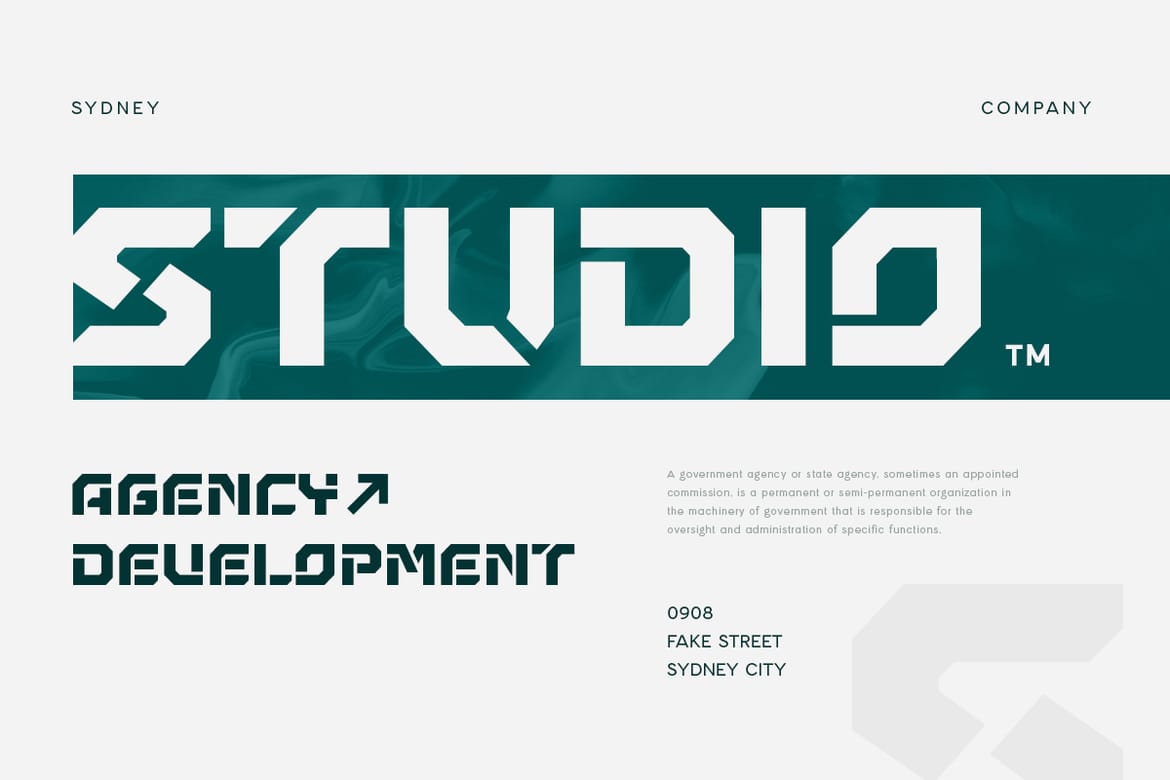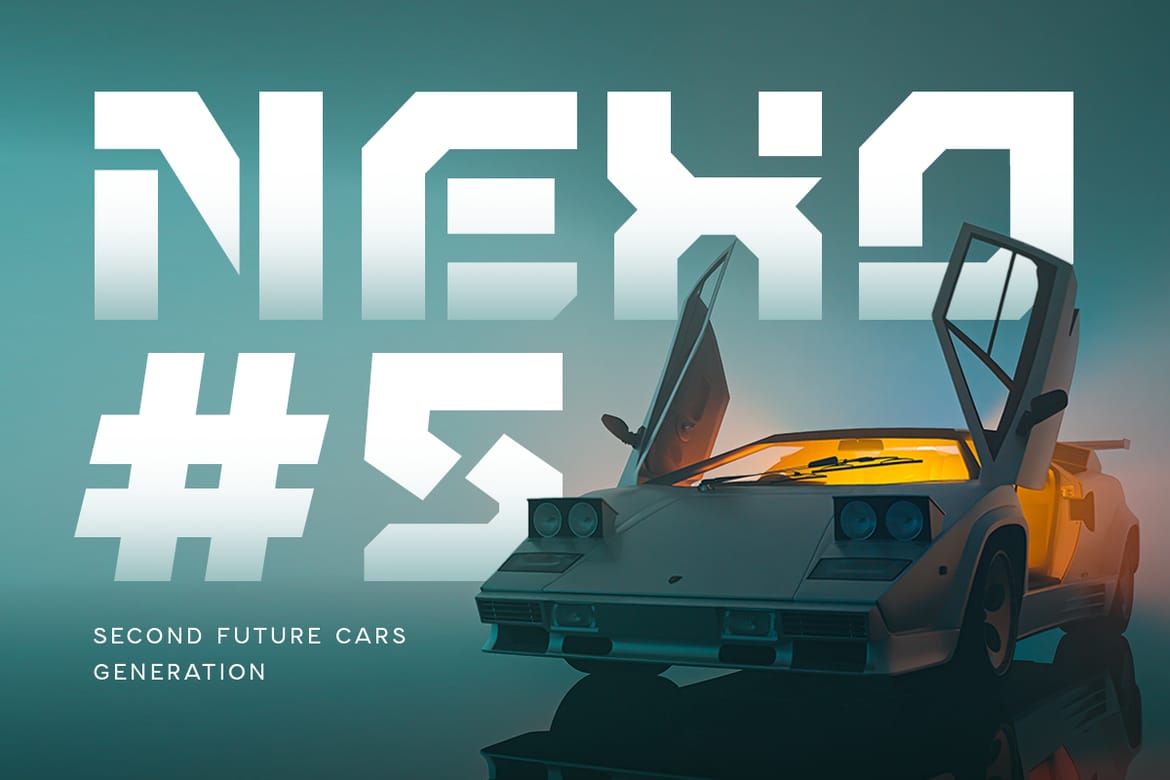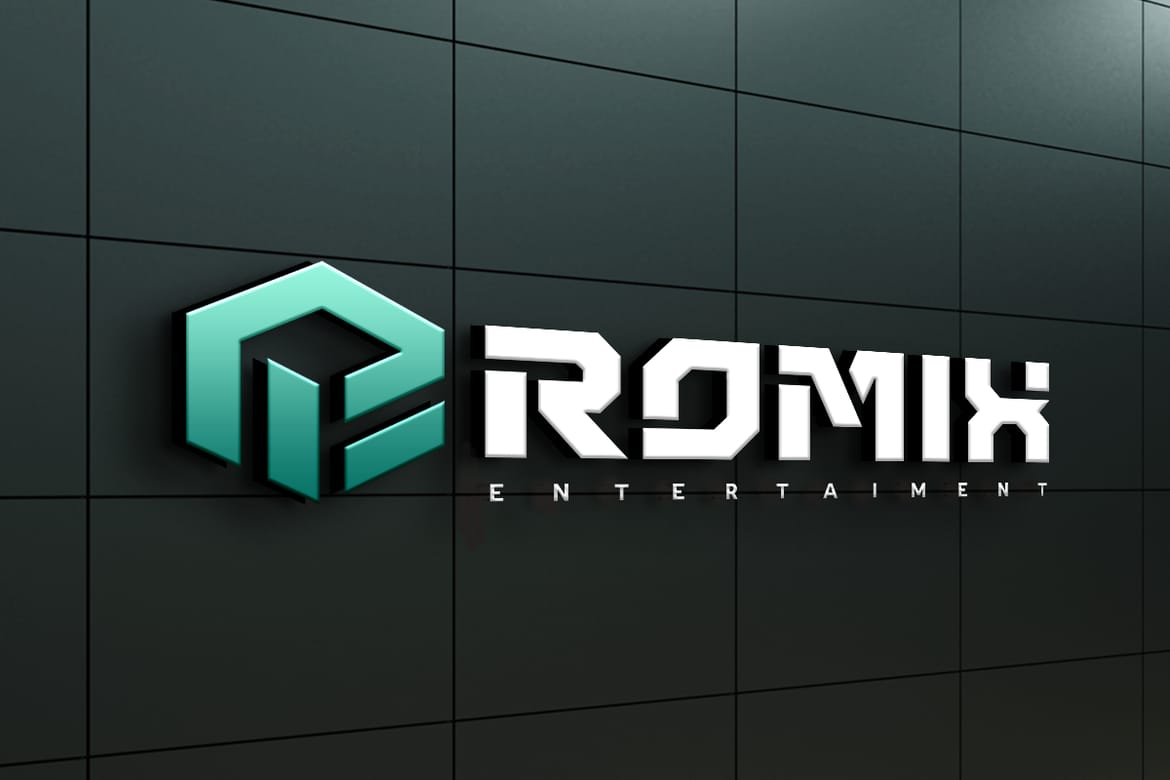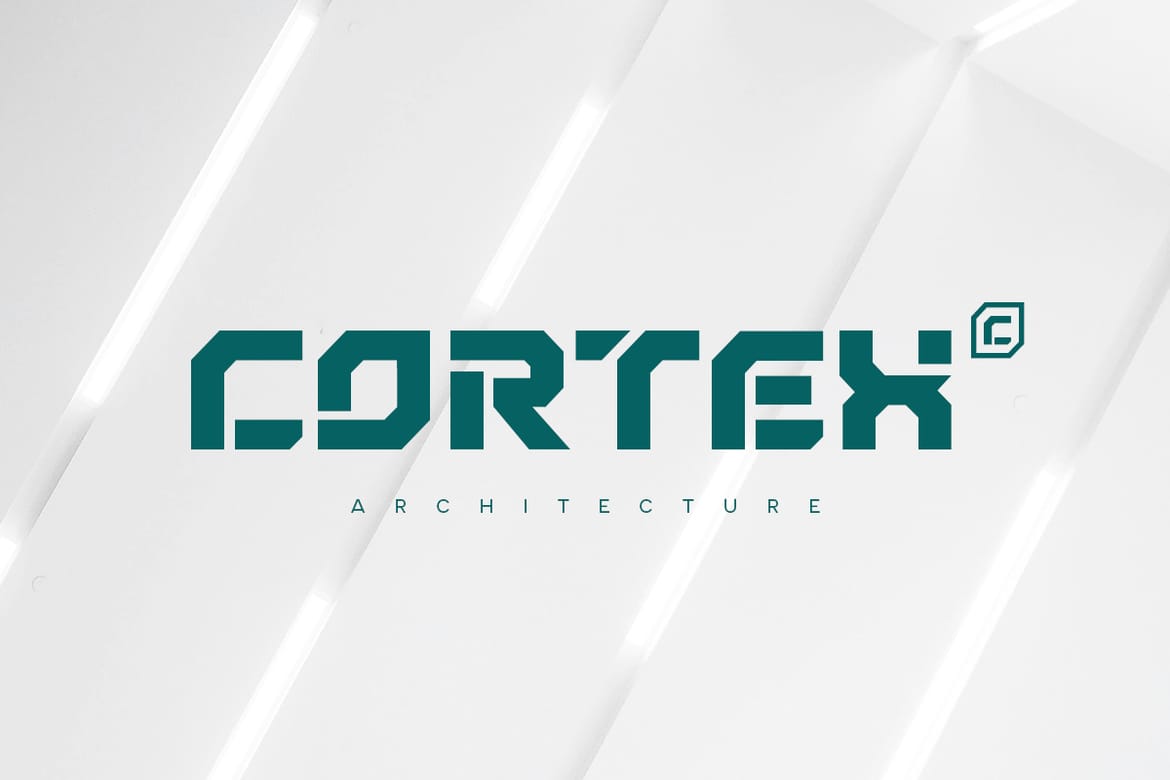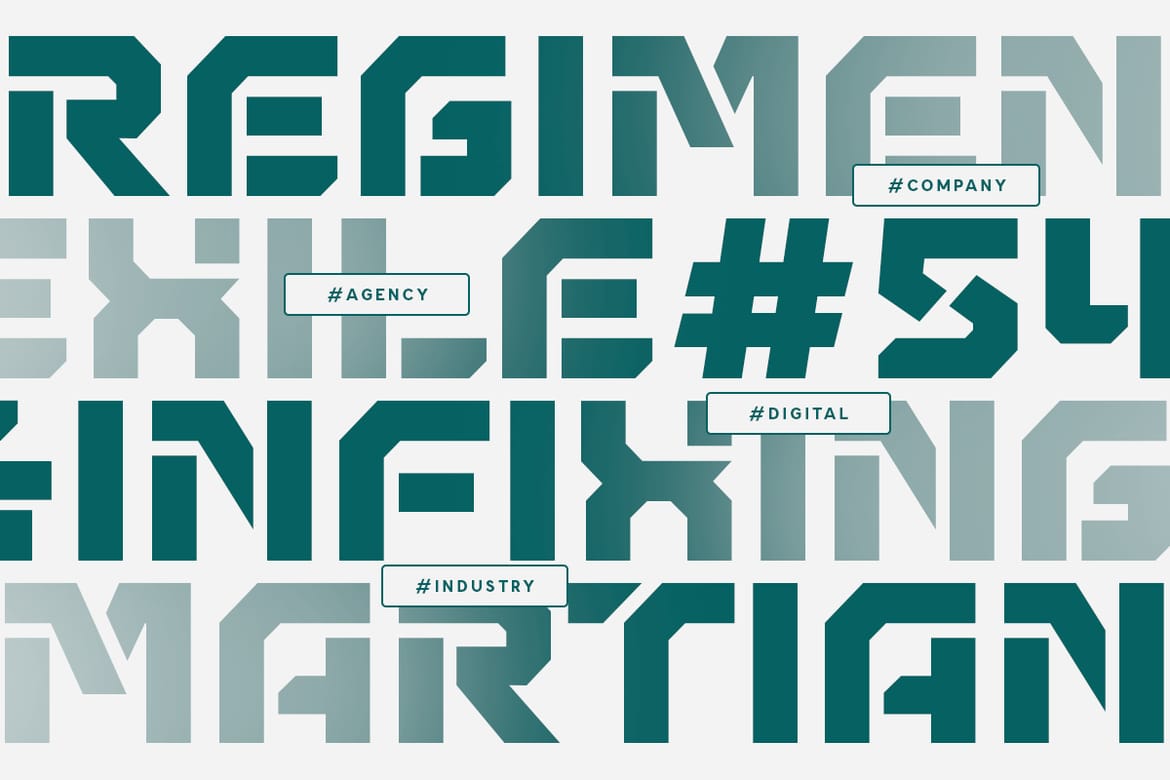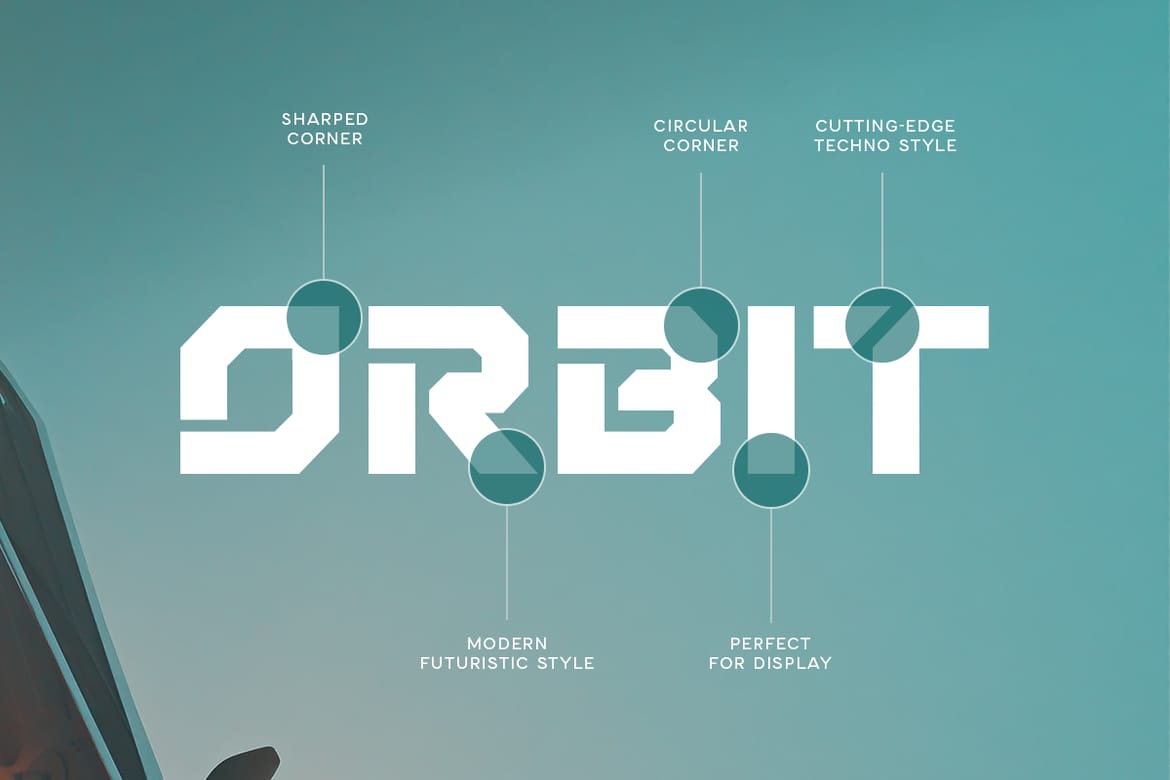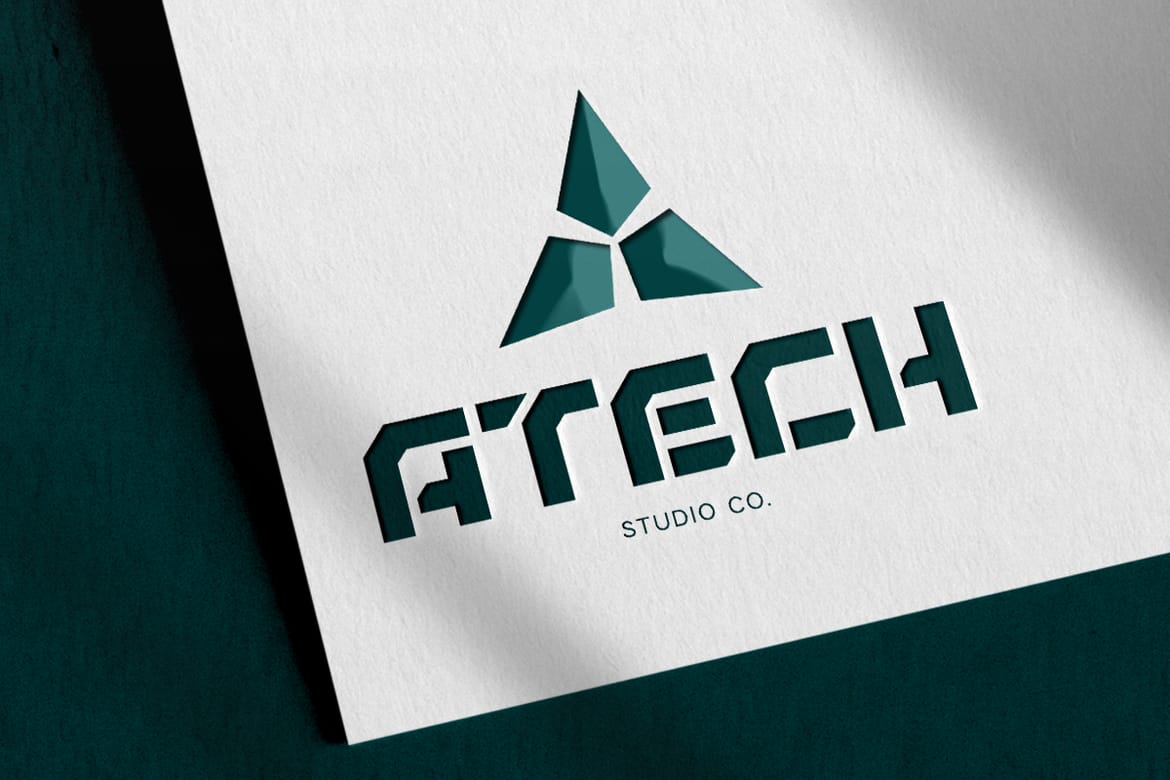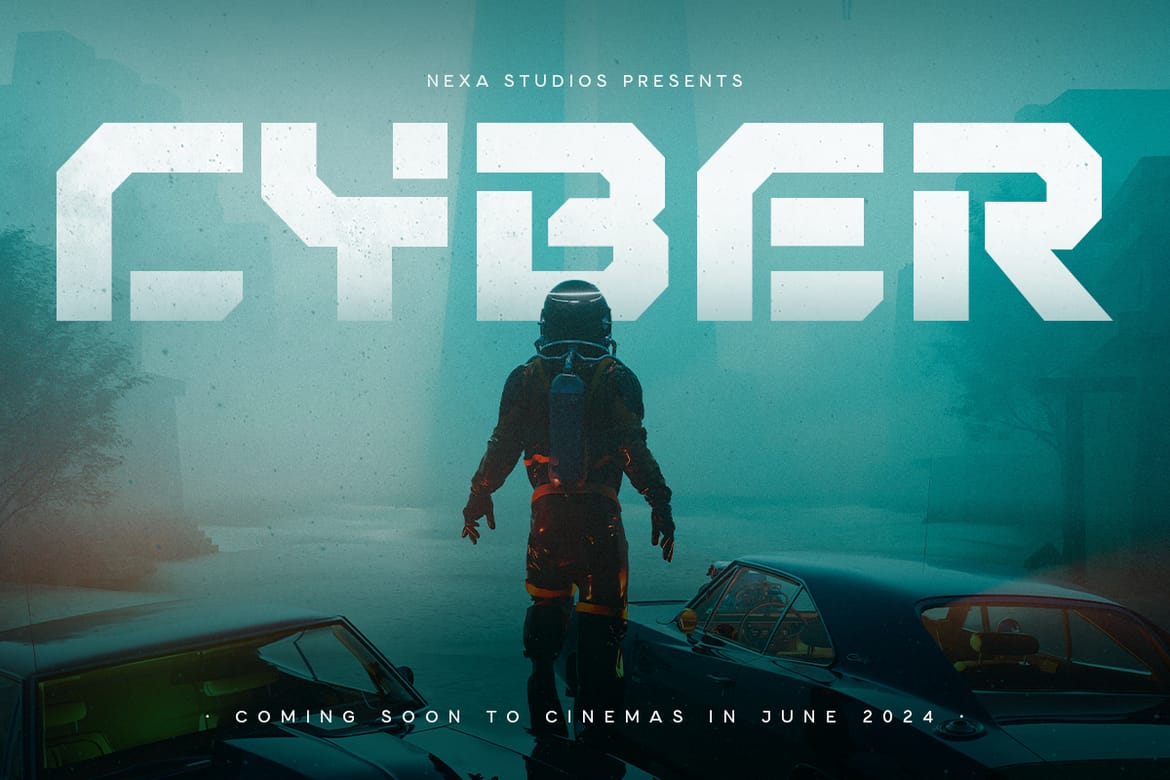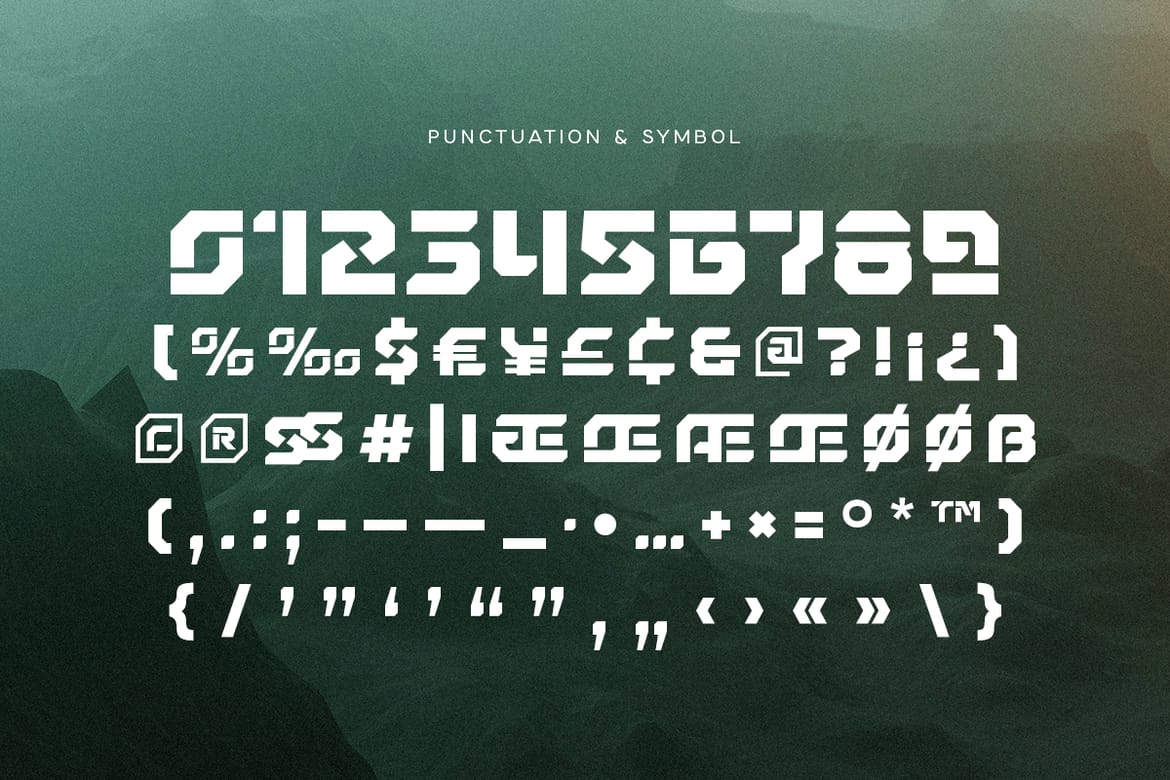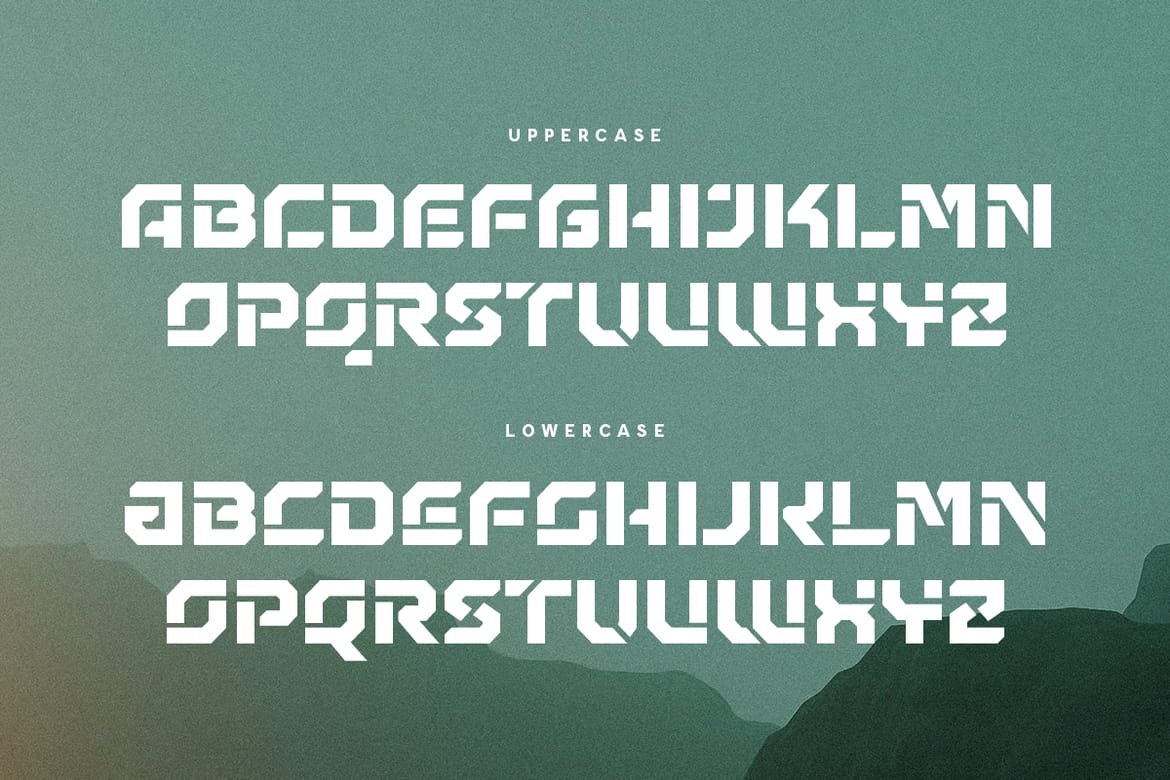
CARTEL is a Futuristic Technology Sci-fi Font that created special for Logo, Film Title, Techno Poster, Technology Design and more stand out typography for Sci-fi, futuristic and technology. It's so perfect to add your style and headline overview for Sci-fi, technology, film, and Futuristic theme. And specially for this font, we crafted for bold style and modern feels so enjoy to create any project that will show your main idea out.
Creative characters prepared to get best results
Ready with All Uppercase characters